The album Madison Beer – Locket captures a deeply personal and emotional atmosphere. With themes of vulnerability, love, and self-reflection, the visual identity surrounding this album naturally leans toward soft, handwritten, and elegant typography. Fonts inspired by Locket should feel intimate, expressive, and modern while maintaining a sense of sophistication.
In this font recommendations article, we explore typography styles that visually align with the mood. These fonts are ideal for album covers, lyric visuals, music merchandise, and creative branding inspired by the album’s aesthetic.
Typography Style Inspired by Madison Beer – Locket
The visual language of Locket feels delicate yet confident. Typography plays a key role in expressing this balance. Fonts that match this album’s mood often feature:
- Fluid script letterforms with emotional flow
- Signature-style typography that feels personal
- Elegant curves that suggest romance and intimacy
- Modern styling suitable for digital music promotion
Below are the best font recommendations that reflect the emotional tone and visual character of Madison Beer – Locket.
Best Font Recommendations for Madison Beer – Locket
1. Calaya – Lovely Modern Script Font
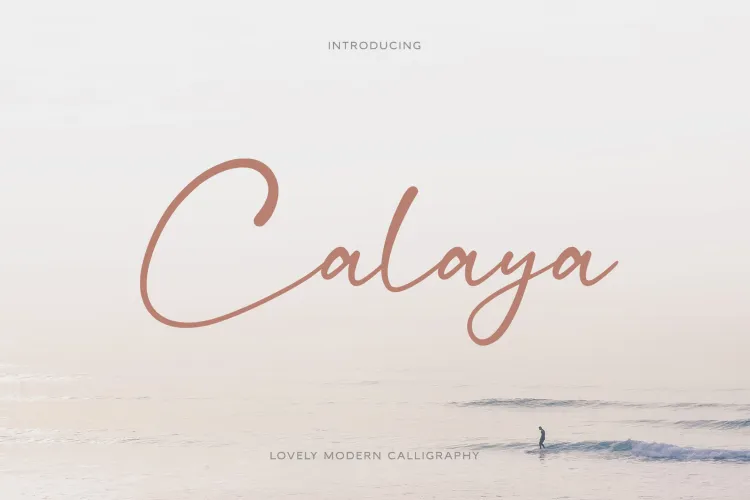
Calaya features graceful strokes and smooth connections that instantly communicate romance and vulnerability. This modern script font is perfect for album artwork, lyric quotes, and visual storytelling inspired by Locket. Its handwritten charm feels natural and emotionally expressive.
2. Jadyn Maria – Luxury Signature Font Extra
Jadyn Maria offers a luxurious signature aesthetic that reflects Madison Beer’s refined image. The font feels exclusive and intimate, making it ideal for cover typography, fashion-driven visuals, and premium music branding connected to the album.
3. Marny – Stylish Signature Typeface
Marny combines stylish handwriting with a relaxed rhythm. Its organic letterforms bring warmth and authenticity, making it suitable for emotional lyric visuals, promotional graphics, and social media designs.
4. Colbiac – Casual Script Font
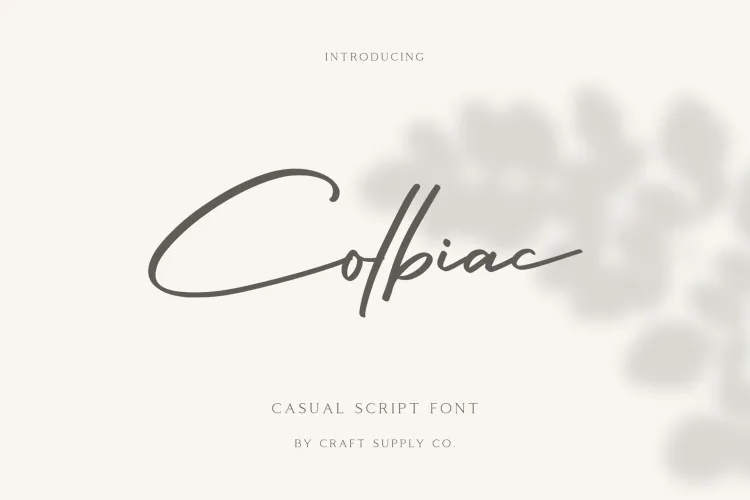
Colbiac delivers a soft and approachable script style. The casual yet elegant appearance works well for storytelling visuals, fan art designs, and music-related graphics that emphasize emotional connection rather than bold statements.
5. Audys – Elegant Script Font
Audys brings refined elegance through smooth curves and balanced strokes. This font suits high-end visuals, editorial layouts, and album-inspired designs where romance and emotional depth need to shine without overwhelming the composition.
6. Adelya – Elegant Signature Font
Adelya captures femininity and softness through delicate signature-style lettering. It pairs beautifully with minimalist layouts and muted color palettes, making it an excellent choice for visuals inspired by the intimate tone of Locket.
7. Signatey – Modern Script Font
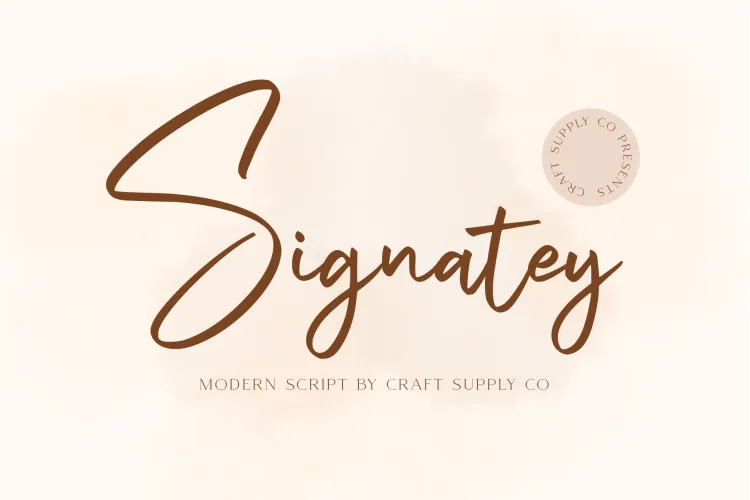
Signatey blends contemporary design with handwritten elegance. Its clean flow and modern structure make it versatile for both digital and print applications, especially in music promotion and personal branding concepts.
8. Malibu Sunset – A Beautiful Font Duo
Malibu Sunset offers a harmonious combination of script and complementary type styles. This font duo is perfect for layered typography, album announcements, and creative layouts that require both emotion and visual balance.
9. Lucylane – Signature Typeface
Lucylane feels effortlessly personal and stylish. Its handwritten signature character reflects emotional storytelling, making it ideal for lyric-based graphics and intimate music visuals inspired by Madison Beer’s artistic direction.
10. Bedger – Stylish Script Font
Bedger adds expressive personality through confident script strokes. It works well for standout lyric quotes, album-inspired posters, and creative typography projects that demand emotional impact with modern flair.
Design Tips for Using These Fonts
When designing visuals inspired by Madison Beer – Locket, let the typography speak emotionally. Use generous spacing, soft backgrounds, and subtle color palettes to enhance the handwritten feel of these fonts.
These fonts work especially well for:
- Album cover concepts
- Lyric quote designs
- Music merchandise
- Social media promotions
- Artist branding visuals
Madison Beer – Locket is an album rooted in emotion, intimacy, and modern elegance. The right typography can amplify these qualities and transform visual designs into meaningful storytelling tools.